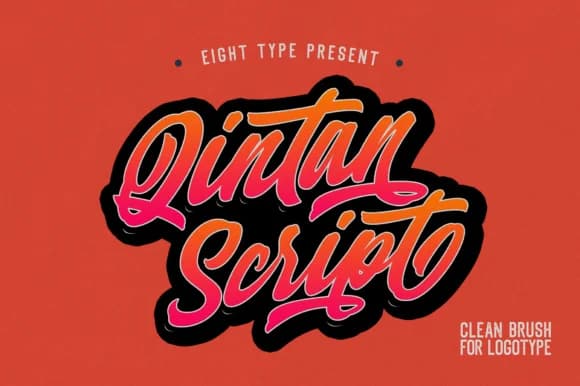
Qintan Script Font by TempCraft is a bold, energetic script typeface inspired by the raw aesthetics of urban street wear and vintage hand-painted signage. This expressive contemporary script brings authentic edge to traditional letterforms, making it a compelling choice for designers seeking personality-driven typography that commands attention across multiple mediums and applications.
The font excels in branding contexts where visual impact matters most. Qintan performs exceptionally well for streetwear brand logos and apparel graphics that demand contemporary edge, vintage record sleeve typography and concert poster design, craft brewery labels and artisan product packaging that conveys independent spirit, and hand-lettered quote artwork for both print campaigns and social media. Its confident, slightly irregular character translates beautifully across digital platforms and physical media alike, maintaining excellent legibility even at larger display sizes.
Qintan Script Font is a script font that shines as a display or heading face. Pair it with a clean sans-serif or serif font for body text β the contrast creates a clear hierarchy while the two styles stay balanced and easy to read.